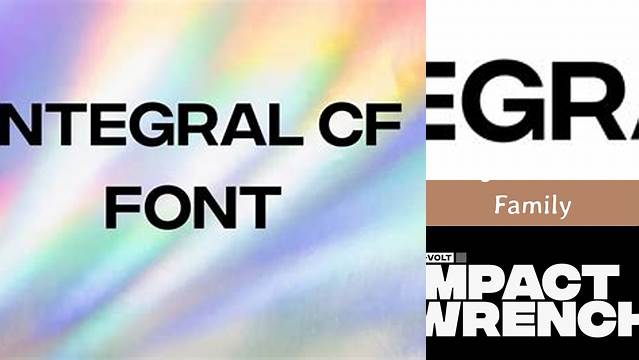
Hey guys! Are you looking for a sleek, modern font that can elevate your design projects? Look no further! The Integral CF font family is a fantastic choice, and in this comprehensive guide, we'll dive deep into everything you need to know about it. From its stunning design to where you can snag a free download, we've got you covered. So, let's jump right in and explore the world of Integral CF!
1. What is Integral CF Font?
Integral CF is a contemporary sans-serif typeface designed by Connary Fagen. Its clean lines, geometric shapes, and versatile nature make it a popular choice for a wide range of design applications. Think logos, headlines, body text, and even web design – Integral CF can handle it all. What sets this font apart is its ability to convey both a sense of sophistication and approachability, making it a perfect fit for brands and projects that want to project a modern yet friendly image. The font family includes multiple weights and styles, providing designers with a wide range of options to choose from to suit their specific needs. Whether you're looking for a bold, attention-grabbing headline or a clean, readable body text, Integral CF has a style that will work for you. The attention to detail in its design, from the perfectly balanced letterforms to the consistent spacing, makes it a font that truly stands out.
2. Key Features of Integral CF Font
Integral CF boasts a plethora of features that make it a standout choice for designers. First and foremost, its geometric construction is a key element of its visual appeal. The clean lines and precise shapes lend it a modern and sophisticated look. The font family offers a variety of weights, from thin to black, allowing for flexibility in your design work. This range of weights makes Integral CF suitable for a variety of applications, from headlines and titles to body text and captions. Another notable feature is its excellent readability, even at smaller sizes. This is crucial for ensuring that your text is legible and easy to read, regardless of the size or medium. Integral CF also includes a comprehensive set of glyphs, including uppercase and lowercase letters, numbers, punctuation marks, and symbols. This extensive character set gives you the tools you need to create professional-looking designs in any language. Furthermore, the font is designed with kerning and spacing in mind, ensuring that the letters fit together harmoniously and create a visually pleasing reading experience. This attention to detail is what sets Integral CF apart and makes it a valuable asset for any designer's toolkit.
3. Why Choose Integral CF for Your Projects?
Choosing the right font can make or break a design, and Integral CF offers a compelling case for why it should be your go-to. Its modern and clean aesthetic instantly elevates any project, giving it a professional and polished look. The versatility of Integral CF is another major selling point. Whether you're designing a logo, a website, a brochure, or anything in between, this font can adapt to your needs. Its range of weights allows you to create visual hierarchy and add emphasis where needed, while its excellent readability ensures that your message is clearly communicated. Integral CF's neutral yet distinctive personality makes it a great choice for a wide range of industries and brands. It's equally at home in corporate materials as it is in creative projects. Moreover, the font's modern aesthetic aligns with current design trends, making it a timeless choice that will keep your designs looking fresh and up-to-date. In a world where first impressions matter, Integral CF helps you make a strong statement. By choosing this font, you're not just selecting a typeface; you're investing in a design asset that will enhance your projects and help you achieve your goals.
4. Integral CF Font Family Weights and Styles
One of the biggest strengths of the Integral CF font family is its extensive range of weights and styles. This variety allows designers to create visually dynamic and engaging layouts. From the delicate Thin weight to the commanding Black weight, each style offers a unique personality that can be leveraged to achieve different effects. The Light and Regular weights are ideal for body text, offering excellent readability without being too visually distracting. The Medium and Bold weights are perfect for headlines and subheadings, adding emphasis and visual interest. For a truly impactful statement, the ExtraBold and Black weights are the go-to choices. These heavier weights are attention-grabbing and can be used to create strong focal points in your designs. In addition to the different weights, Integral CF also includes italic styles, which add a touch of elegance and sophistication. The italic styles can be used to emphasize certain words or phrases, or to create a visual contrast with the regular styles. The full range of weights and styles in the Integral CF font family gives designers the flexibility to create cohesive and visually appealing designs that effectively communicate their message.
30. Integral CF Font: Future Trends and Uses
Looking ahead, Integral CF is poised to remain a popular choice for designers due to its timeless aesthetic and versatility. As design trends continue to evolve, Integral CF's clean lines and geometric shapes align perfectly with the ongoing emphasis on minimalism and simplicity. In the future, we can expect to see Integral CF used extensively in web design, particularly in responsive layouts that adapt seamlessly to different screen sizes. Its excellent readability makes it a great choice for body text, while its bolder weights are ideal for headlines and titles. In branding, Integral CF will likely continue to be used by companies looking to project a modern and sophisticated image. Its neutral personality allows it to work well across a variety of industries, from tech startups to fashion brands. The font's adaptability also makes it a great choice for logo design, as it can be easily scaled and used in various applications. As the use of typography in motion graphics and animation continues to grow, Integral CF's clean lines and geometric shapes make it well-suited for these dynamic mediums. The font's versatility allows it to be used effectively in a variety of animated contexts, from simple text animations to complex motion graphics. Integral CF's enduring appeal and adaptability ensure that it will remain a valuable asset for designers for years to come. Its clean, modern aesthetic and excellent readability make it a timeless choice for a wide range of design projects. So go ahead, guys, download Integral CF and let your creativity flow!